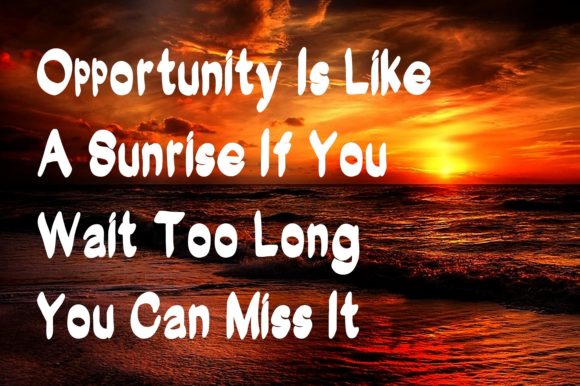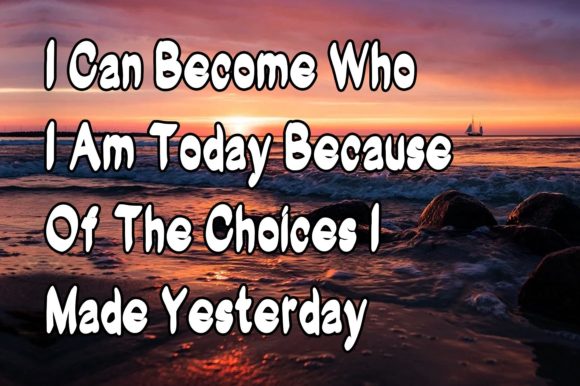
Calm Waves Font
db-ku.com - Script & Handwritten -- Calm Waves Font is a cute and casual display font. Black Swag will look outstanding in any context, whether you’re looking for fonts for Instagram or calligraphy scripts for DIY projects, this font will turn any creative idea into a true piece of art!